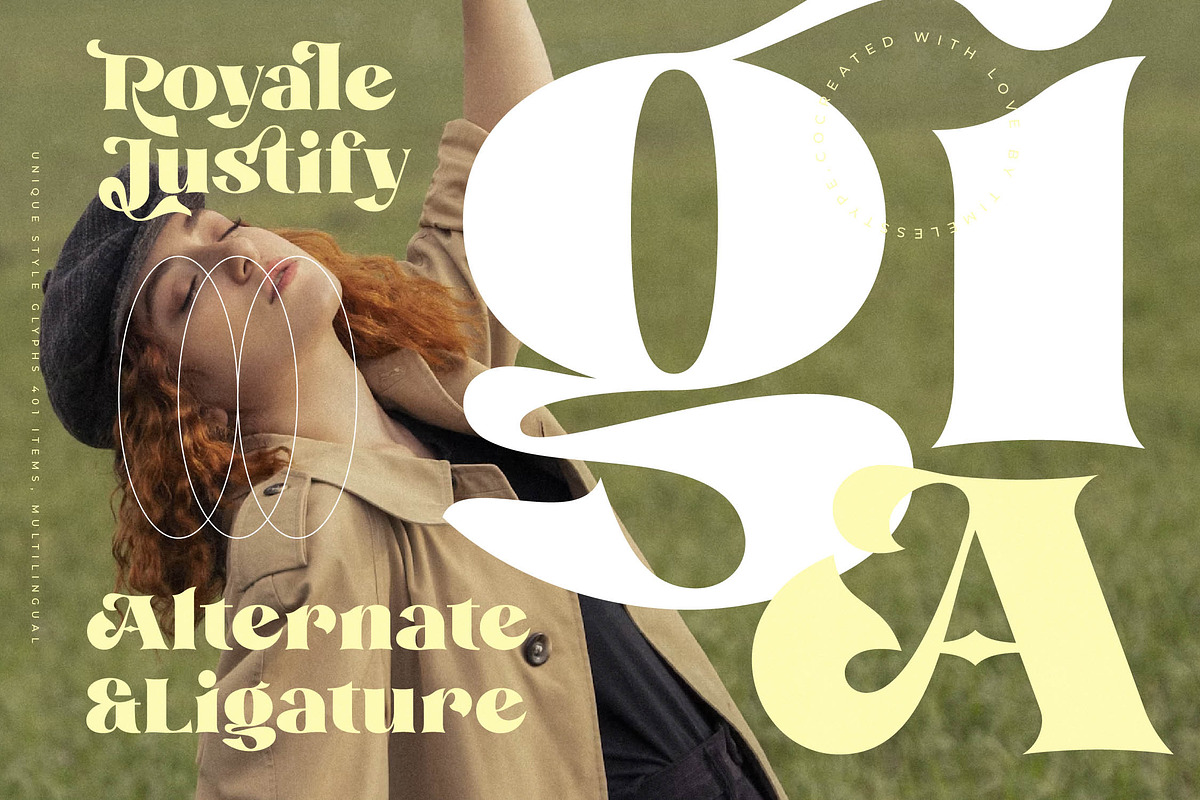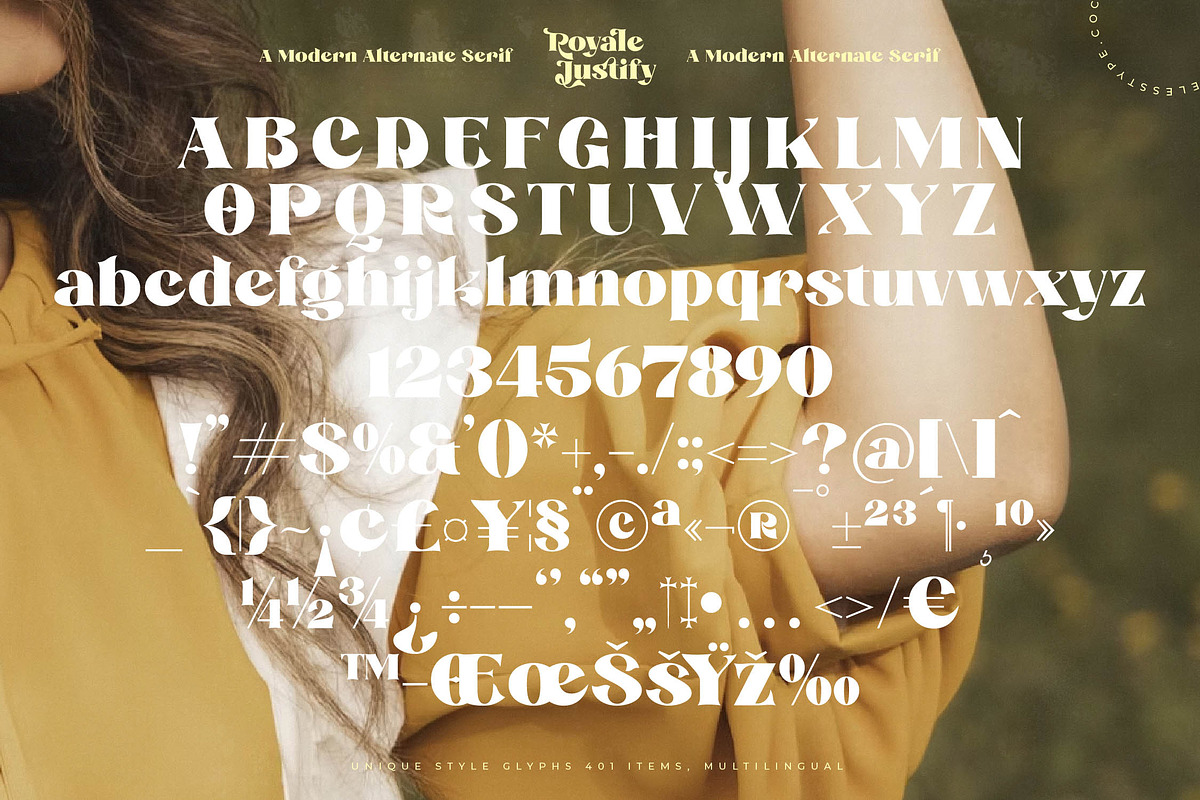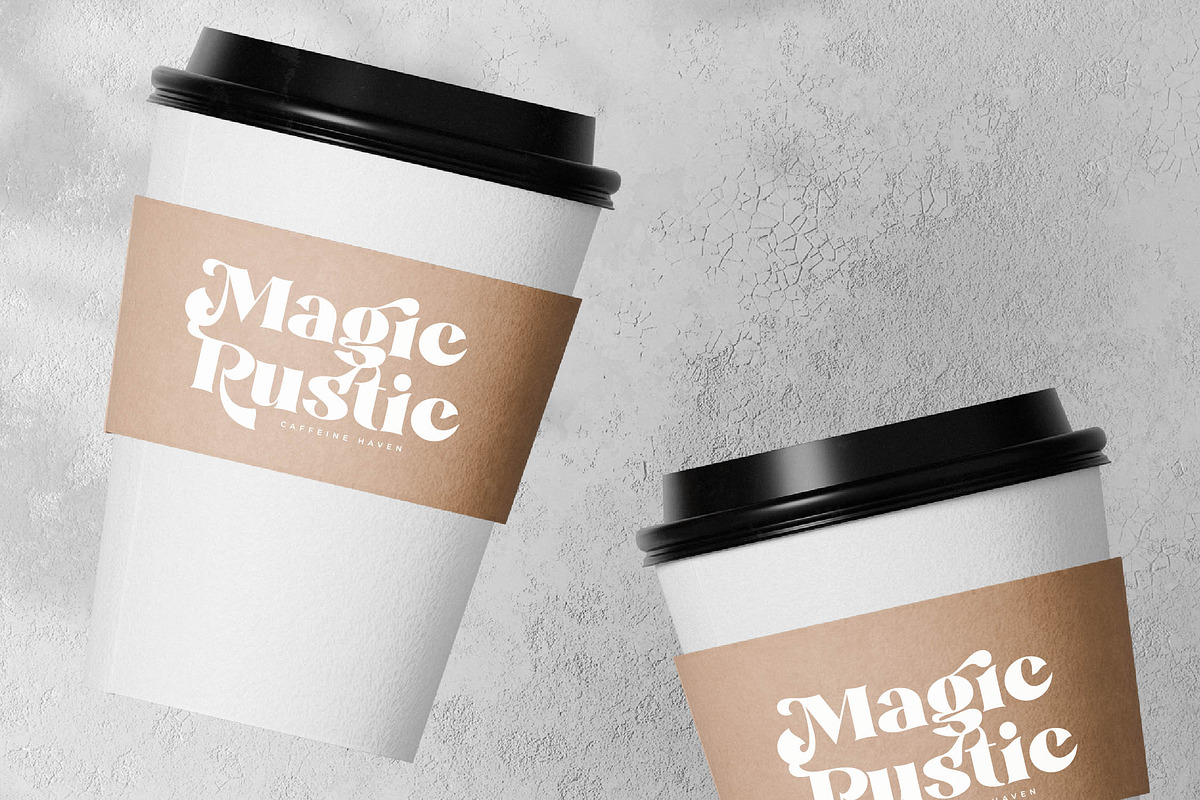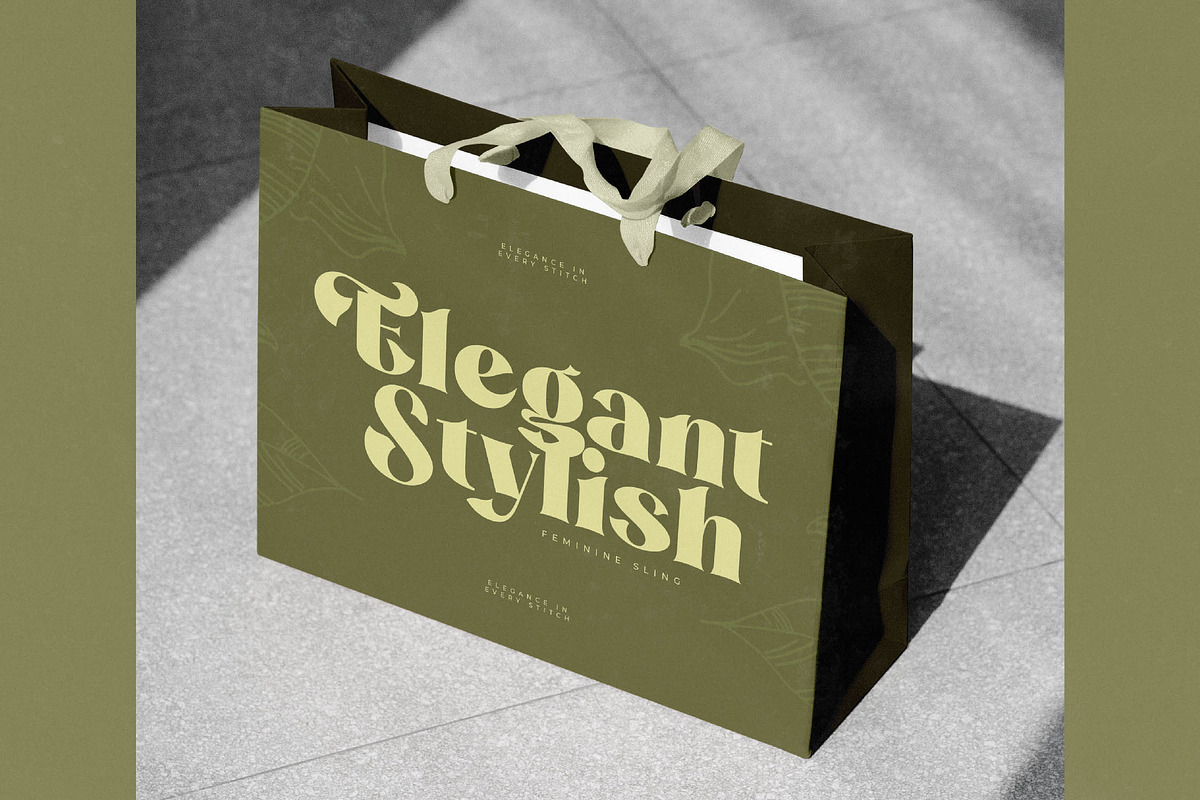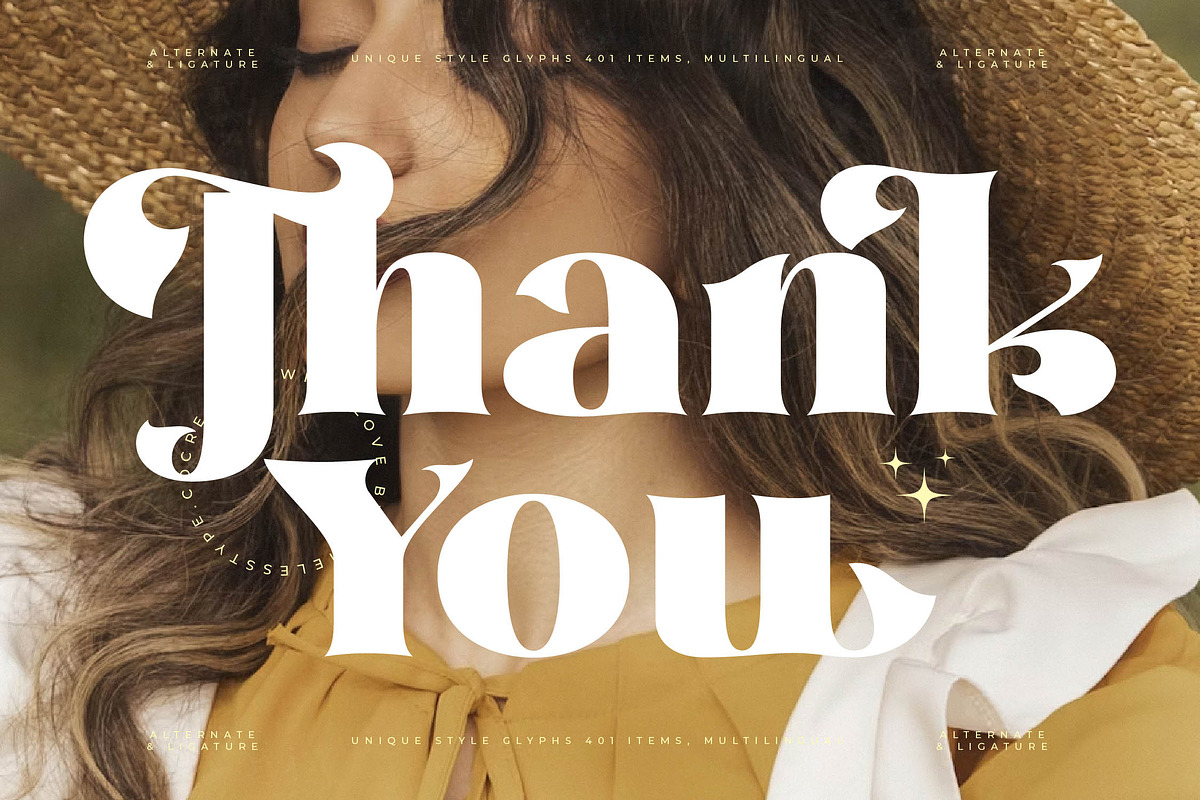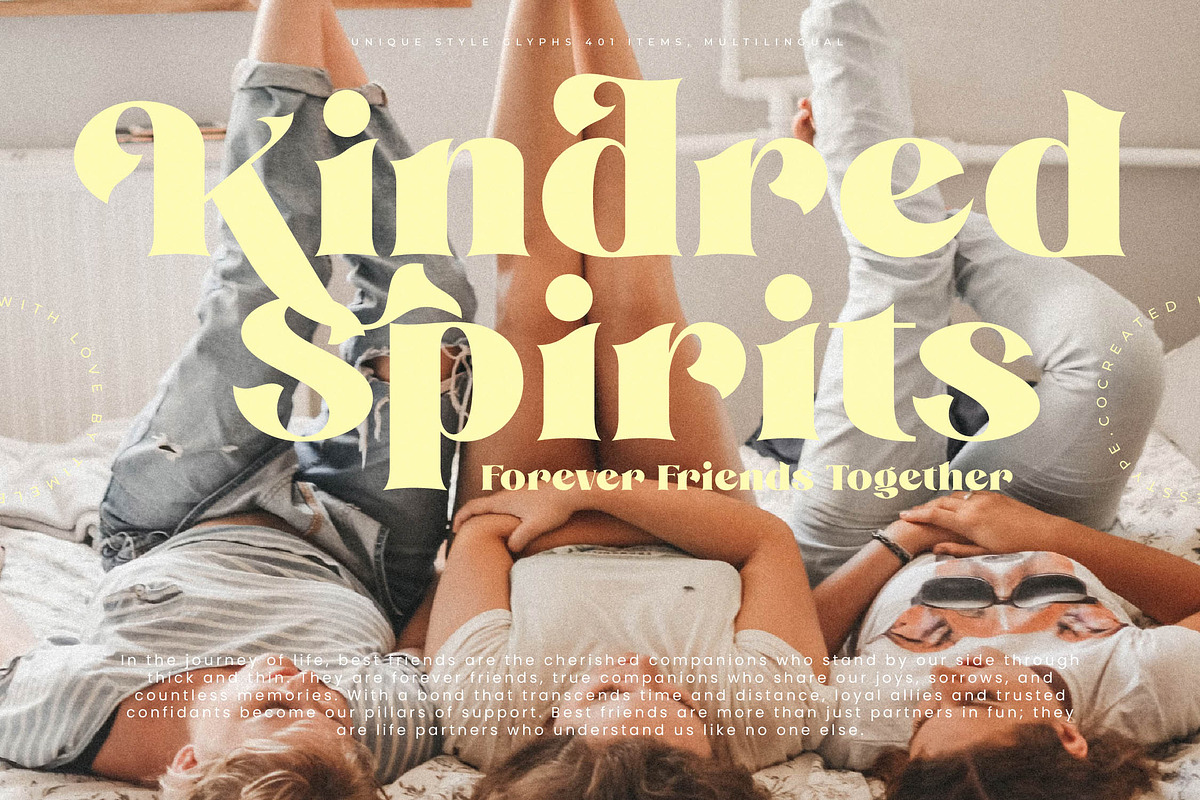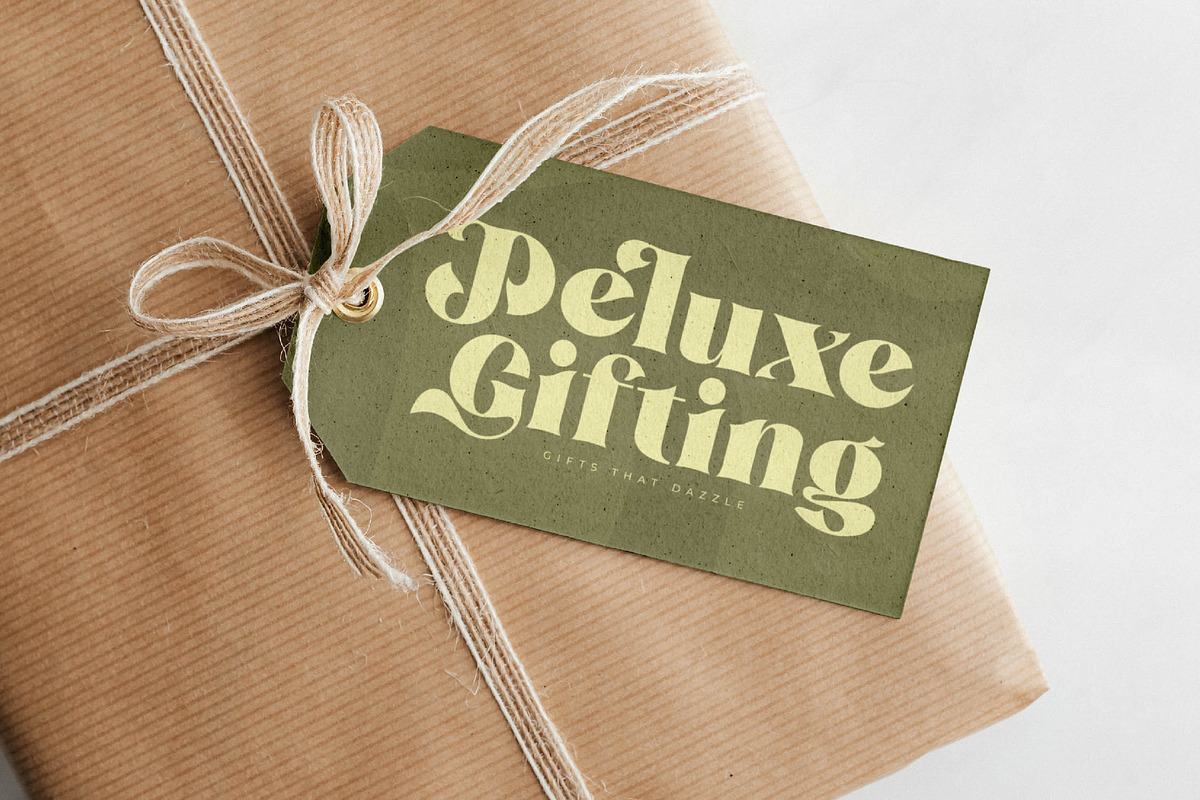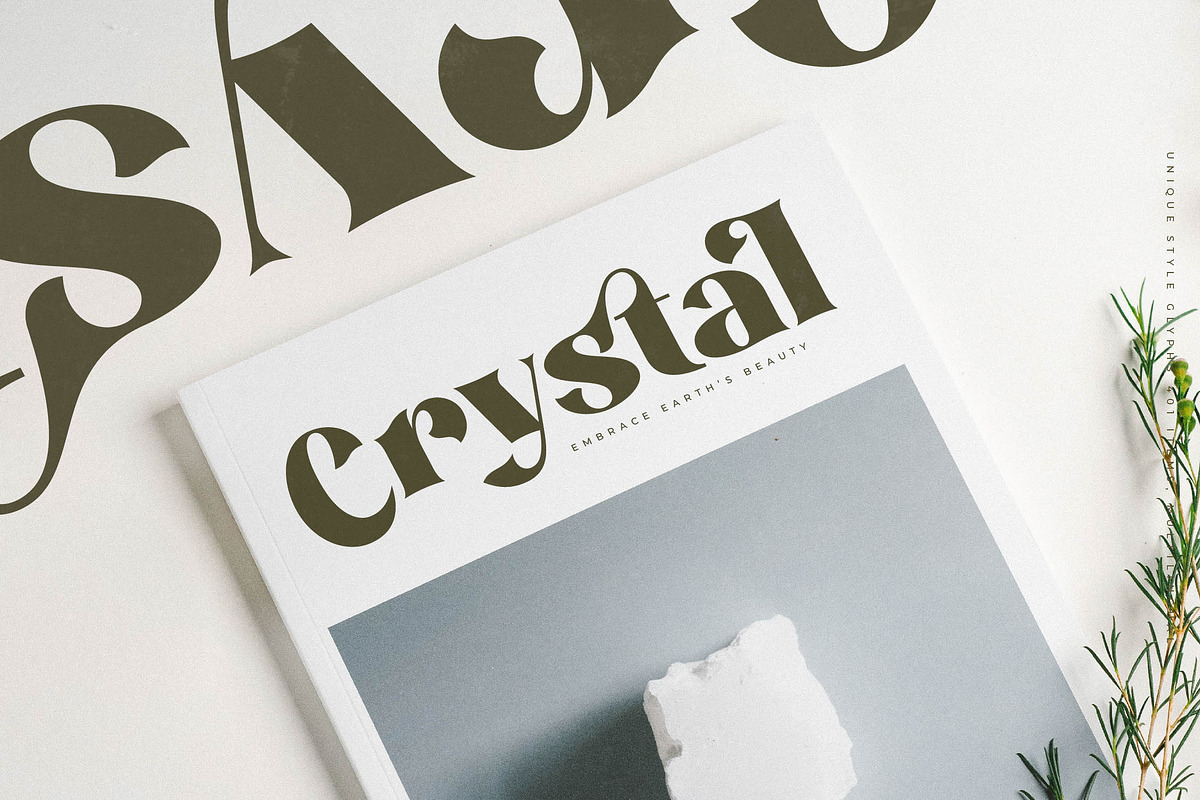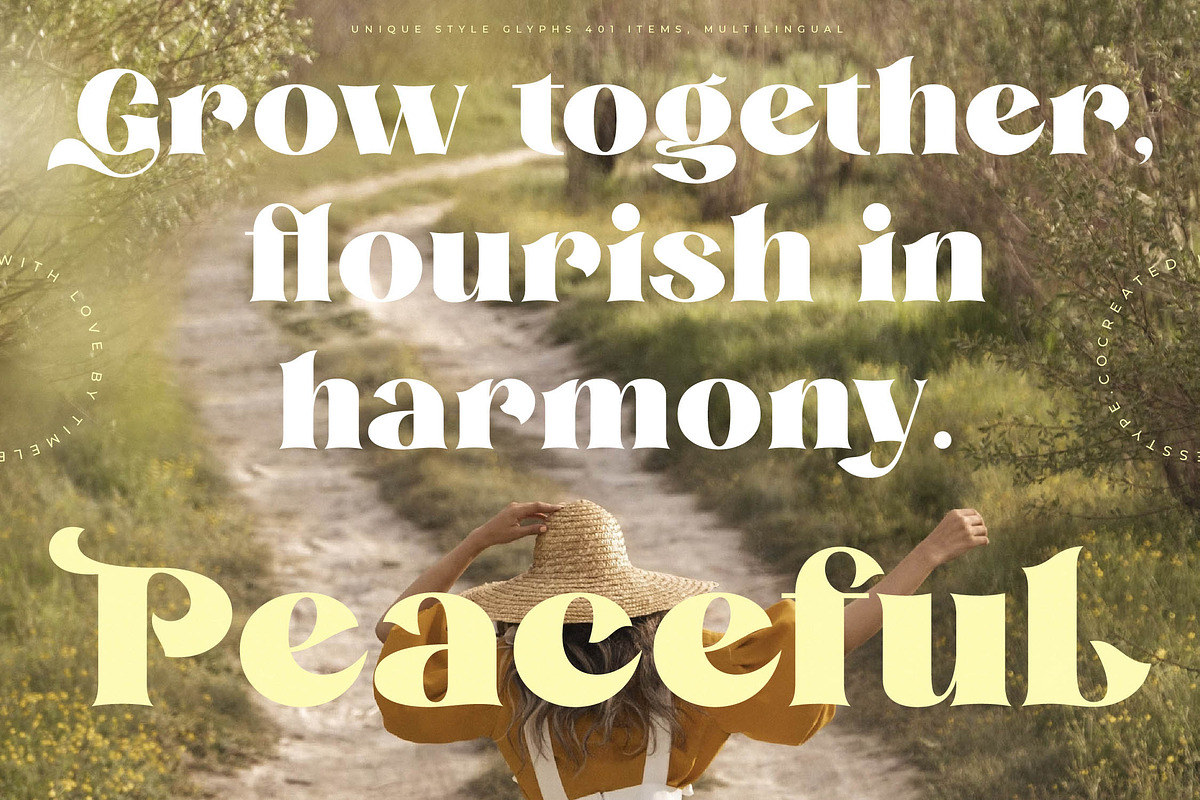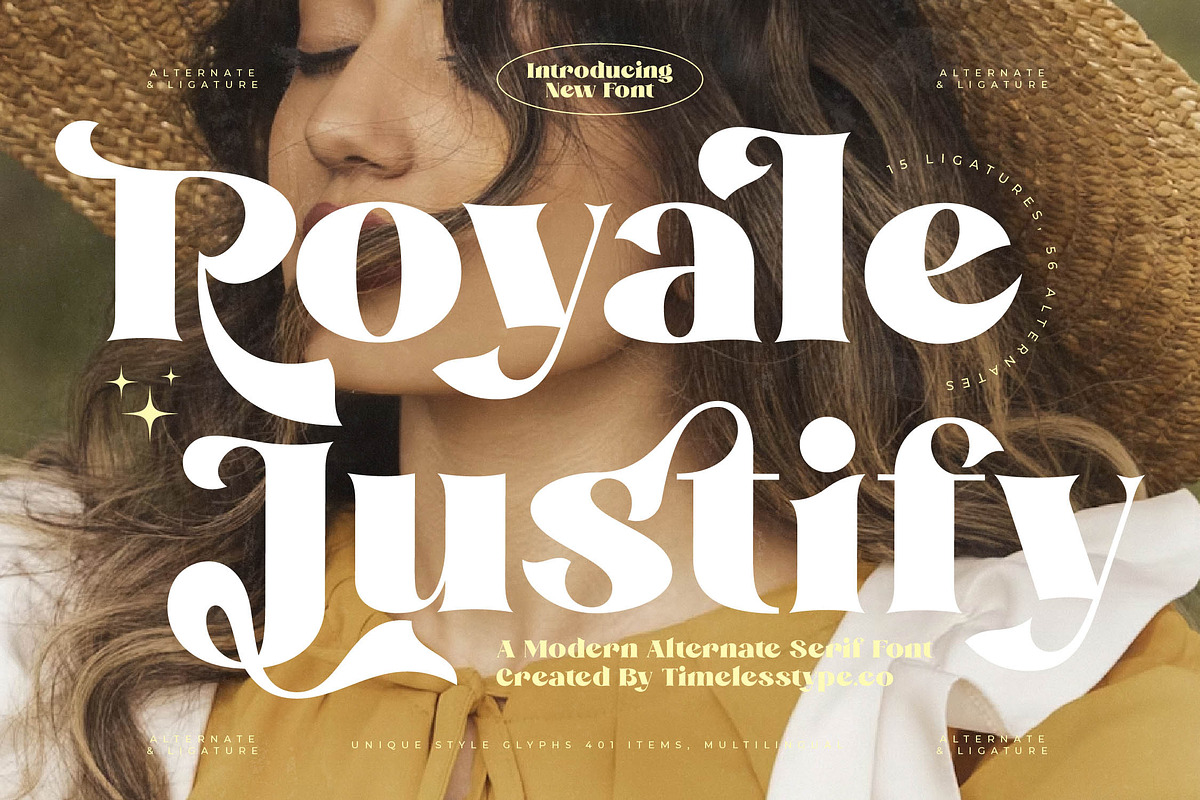
Royale Justify Modern Serif
Elevate your creative vision with the timeless elegance of Royale Justify, a typeface designed to turn every word into a piece of art. It captures the essence of high-fashion sophistication, making it an indispensable tool for designers seeking a touch of class.
Inspired by the golden era of editorial design and the sharp lines of modern haute couture, this font draws its soul from the intersection of classic heritage and contemporary chic. The interplay of thick and thin strokes evokes the atmosphere of a sun-drenched Parisian studio where style meets substance.
This modern serif display is defined by its luxury typography and high-contrast serif strokes that command attention in any layout. It is the ultimate editorial font for those who prioritize branding impact and want to create a visual identity that resonates with an upscale audience.
Perfectly aligned with the current modern serif trend, this typeface fulfills the demand for editorial display fonts that offer more than just legibility. By utilizing character-driven typography, it allows brands to tell a story through unique shapes and artistic letterforms.
From high-end logo design and comprehensive branding systems to the delicate nuances of wedding invitations, this font excels across diverse platforms. It is particularly suited for editorial layouts in fashion magazines and premium packaging that requires a signature aesthetic.
This expansive set includes a collection of elegant ligatures and creative alternates to provide endless customization for your titles. With extensive support for multilingual layouts and international characters, plus flowing swashes, it ensures your message reaches a global audience with style.
- Ligature 15 Alternate 56